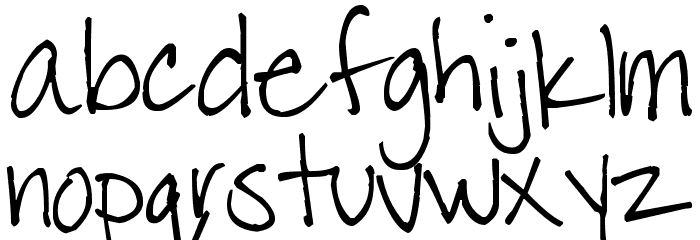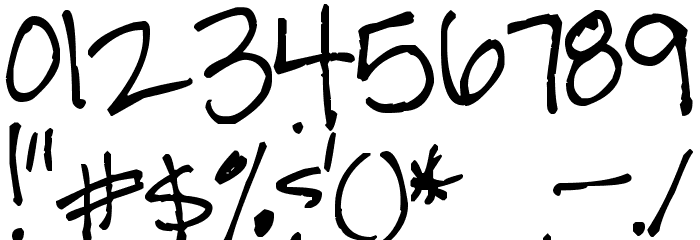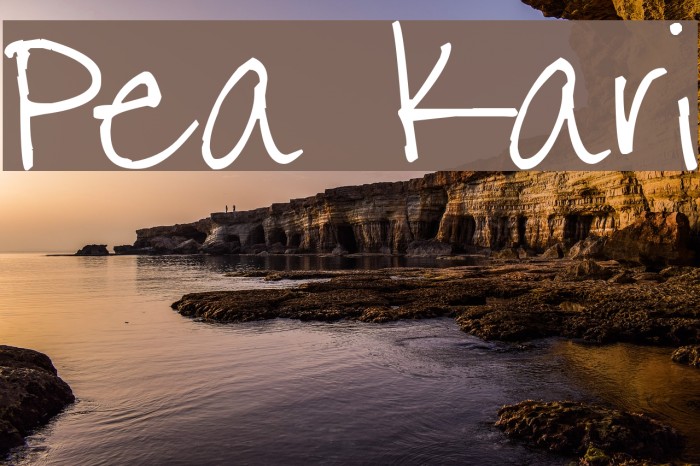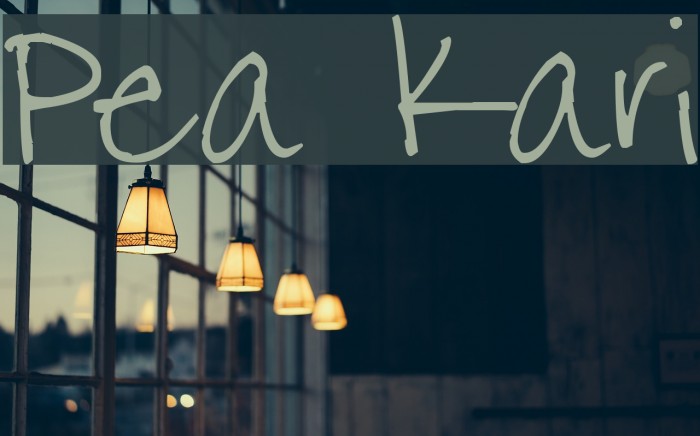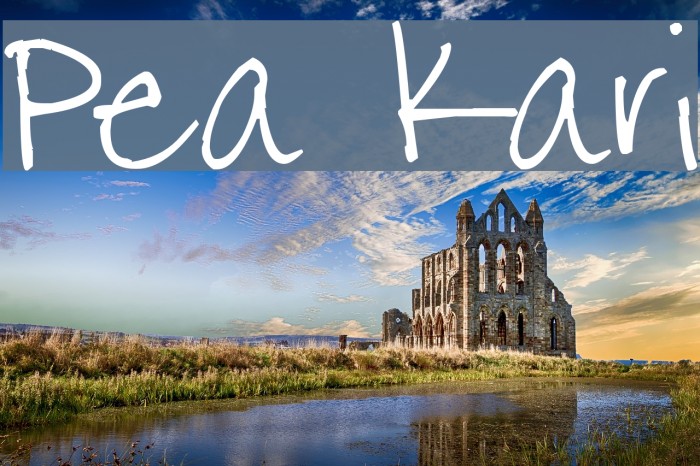
Pea Kari Font
This font features a playful and casual handwritten style, characterized by its irregular strokes and informal appearance. The letters are slightly slanted, giving a dynamic and lively feel. The uppercase and lowercase letters maintain a consistent flow, while the numbers and special characters complement the overall aesthetic. The strokes vary in thickness, adding to the hand-drawn effect, and the characters are slightly spaced apart, enhancing readability. This font exudes a friendly and approachable vibe, making it suitable for creative and informal projects.
A playful, casual handwritten font with irregular strokes and a lively feel.
- Proposed Projects: Ideal for greeting cards, children's books, personal blogs, and informal branding.
- Overall Style: Casual
- Use Case: Logos, Headlines, Informal text